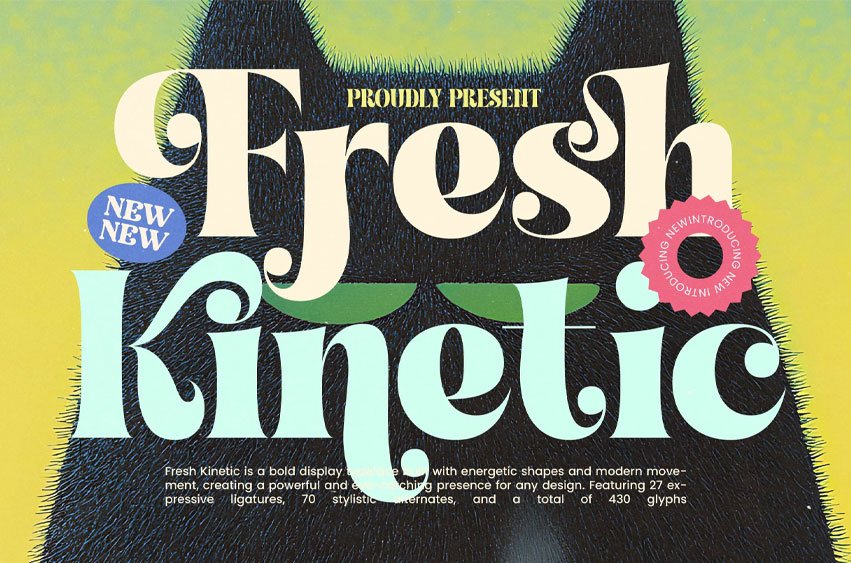
Fresh Kinetic Font
Fresh Kinetic Font is a bold modern display typeface with playful curves, expressive swashes, and a kinetic sense of movement. Designed to stand out instantly, it blends retro charm with contemporary flair—making it perfect for creative branding, editorial layouts, packaging, posters, and eye-catching headlines.
With 27 expressive ligatures, 70 stylistic alternates, and 430 glyphs, this font delivers versatility and bold personality for any vibrant, artistic project.